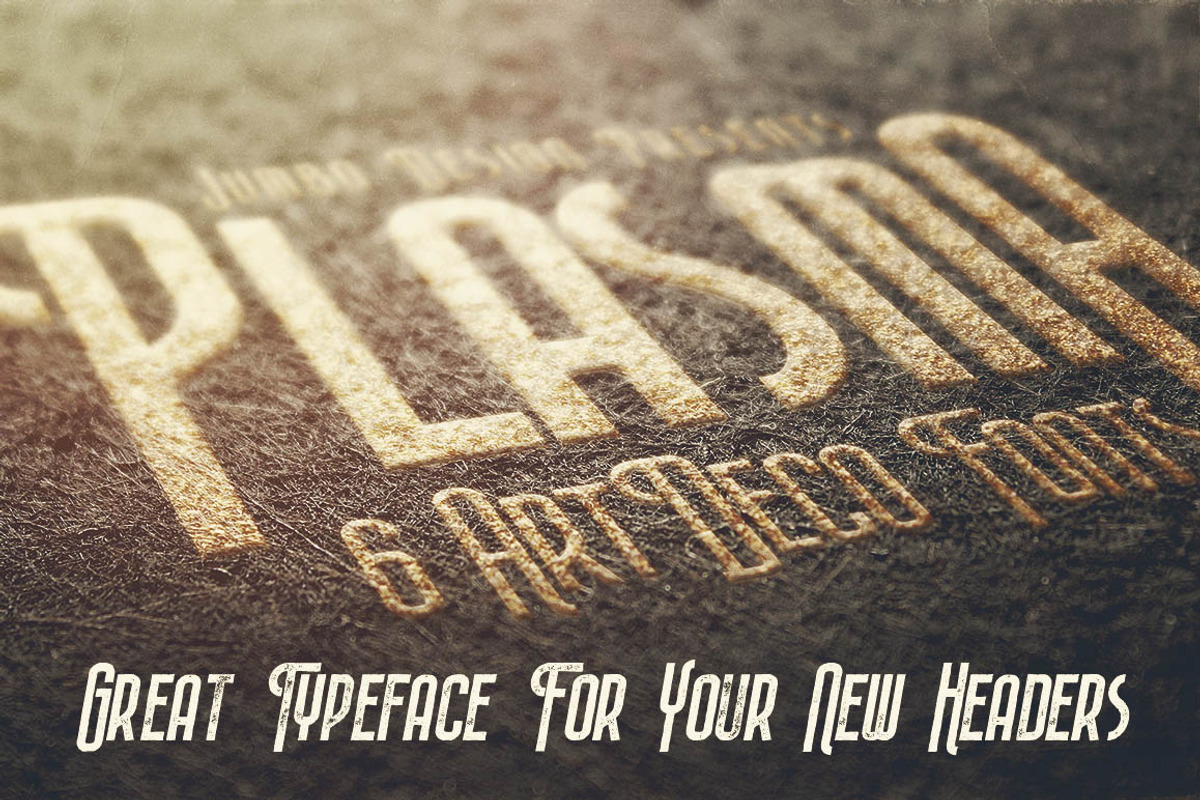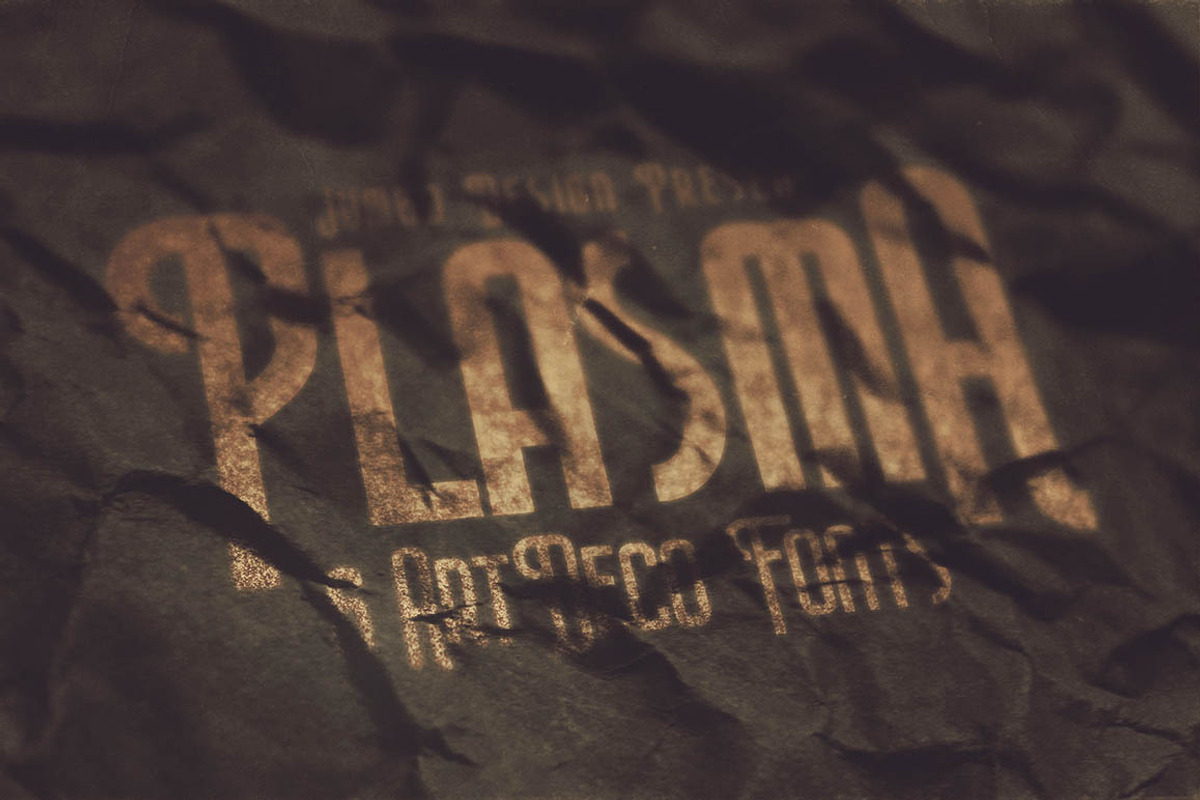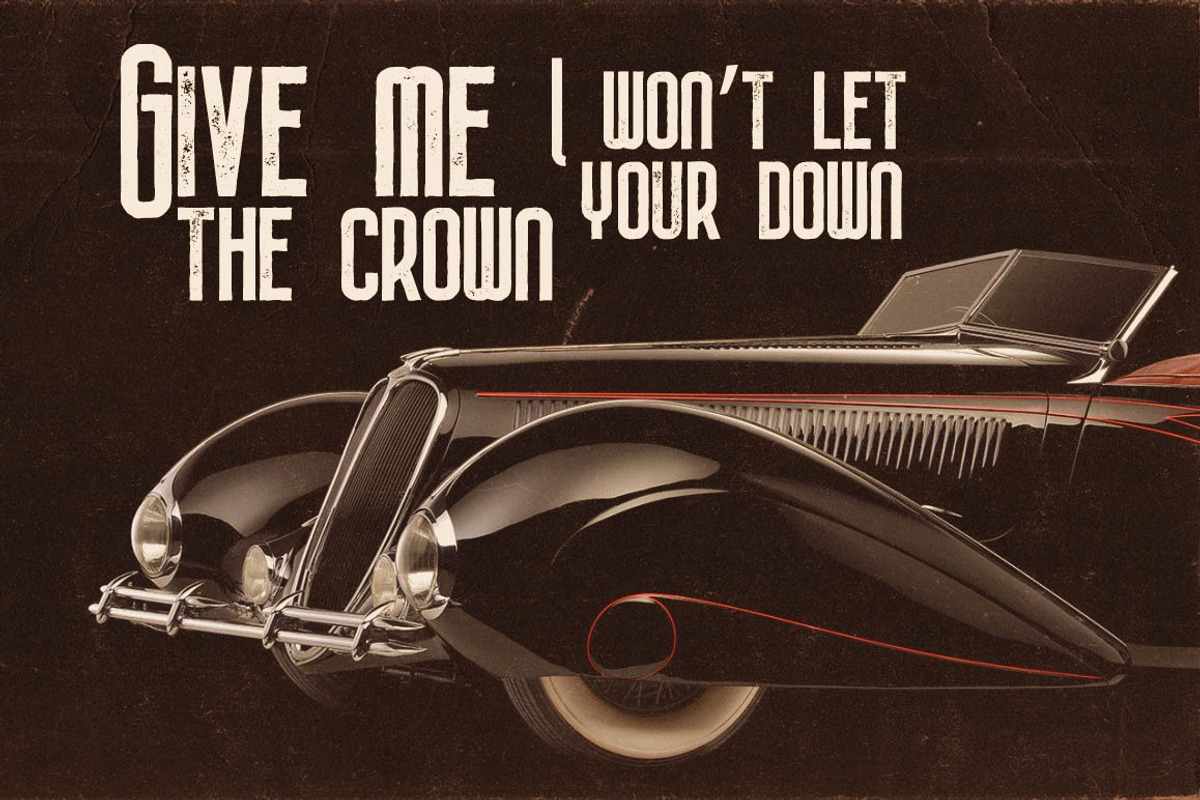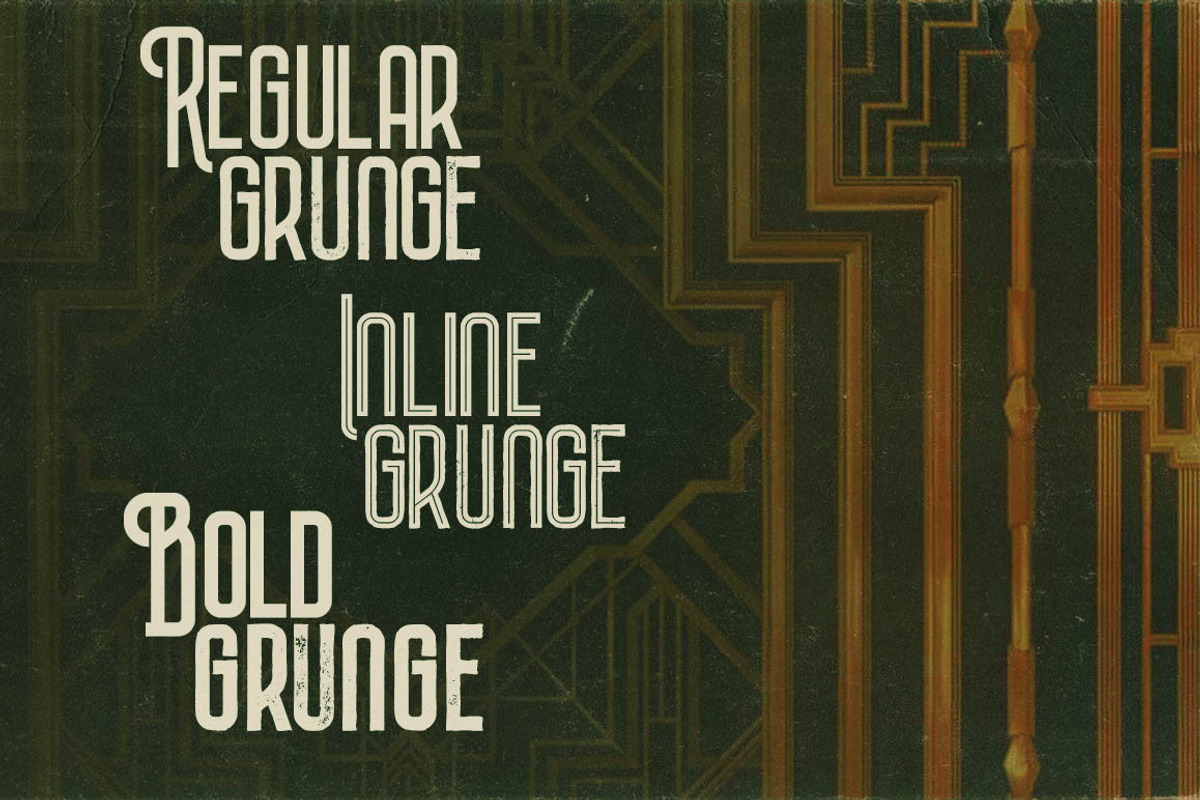
Plasma - ArtDeco Style Font
Plasma - ArtDeco Style Font by JumboDesign is a font selected for branding, posters, packaging, typography.
Plasma - ArtDeco Style Font by JumboDesign fits naturally into Branding, posters, packaging, typography.